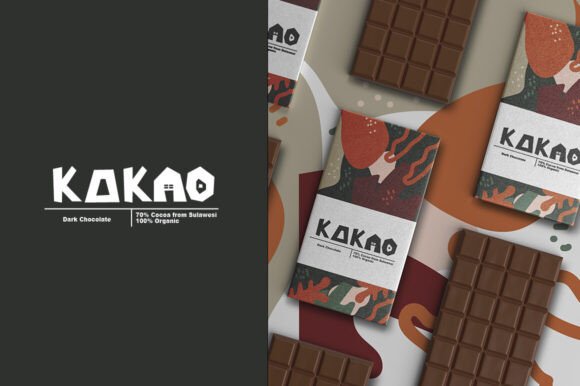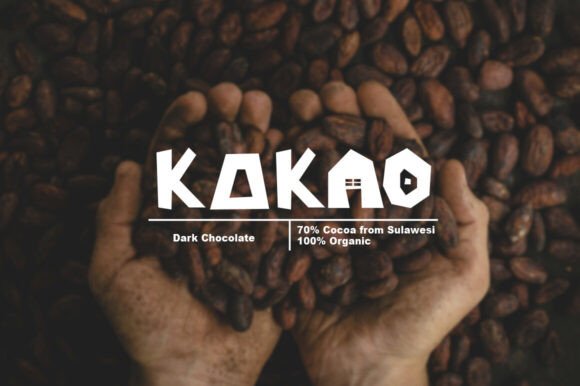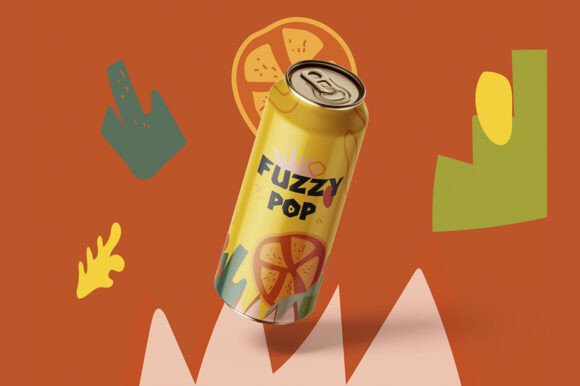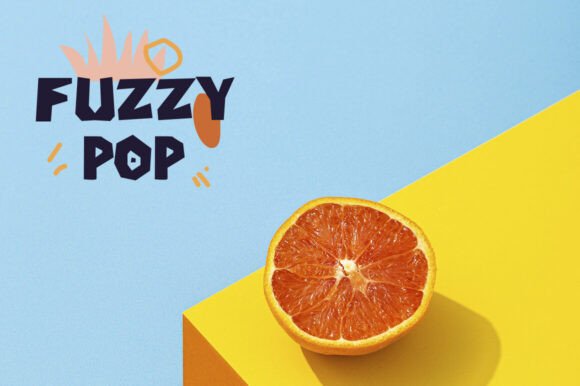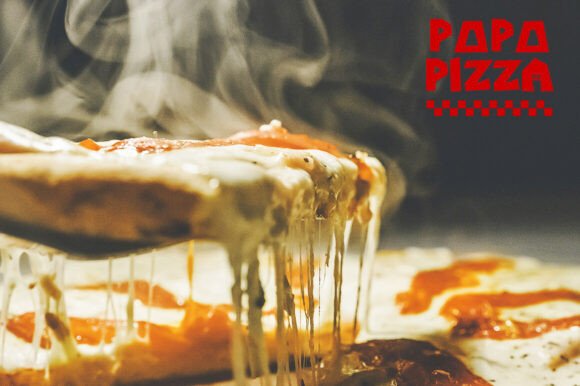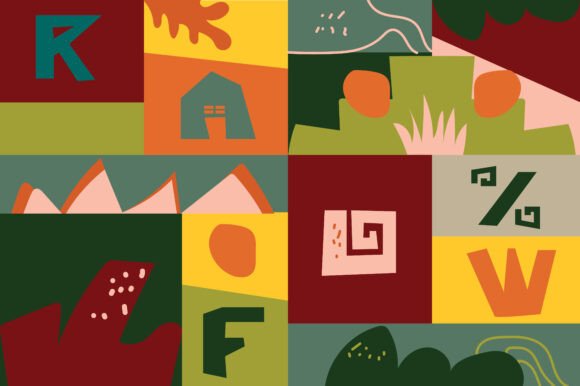
Introducing Frika: The Unique Papercut-Inspired Font
In the world of typography, few fonts manage to capture the essence of traditional art forms while offering modern versatility. Frika, a newly introduced font, does just that by blending the intricate beauty of papercut designs with the rich heritage of ethnic art. This unique fusion results in a delicate yet bold aesthetic that is sure to elevate any creative project.
The Inspiration Behind Frika
Frika draws its inspiration from the ancient art of papercutting, a craft that has been used for centuries to create intricate designs for various cultural and religious purposes. The precision and attention to detail required in papercutting are evident in Frika’s beautifully detailed characters. Each letter is crafted to reflect the careful cuts and patterns found in traditional papercut art, giving Frika a distinctive and handcrafted feel.
In addition to papercut designs, Frika also incorporates elements from ethnic art, adding a layer of cultural richness and diversity to the font. The motifs and patterns from various cultures around the world are seamlessly integrated into the characters, making Frika a true representation of global artistic heritage. This blend of traditional techniques and multicultural influences makes Frika a standout font for designers looking to add an international flair to their work.
Design Features of Frika
Frika’s design is characterized by its delicate yet bold aesthetic. The font features beautifully detailed characters with intricate cut-out patterns that give it a three-dimensional appearance. The level of detail in each letter is impressive, making Frika perfect for projects where a touch of elegance and sophistication is desired.
One of the key features that set Frika apart is its set of carefully designed alternates. These alternates provide multiple stylistic options, allowing designers to customize the look of their text. Whether you want to create a bold statement or a subtle impression, Frika’s alternates give you the flexibility to experiment with different combinations, ensuring your designs have a personalized and unique touch.
Versatility of Frika
Frika is an incredibly versatile font, suitable for a wide range of applications. Its unique design makes it ideal for:
- Invitations: Add a touch of handcrafted elegance to your invitations, making them truly special and memorable.
- Branding: Create bold and eye-catching brand identities that stand out from the crowd.
- Posters: Design stunning posters that capture attention with Frika’s intricate and detailed characters.
- Packaging: Elevate your product packaging with a font that exudes creativity and authenticity.
Why Choose Frika?
In a world where digital designs often lack a personal touch, Frika offers a refreshing alternative. Here are a few reasons why designers and crafters should consider Frika for their projects:
- Authenticity: Frika brings a sense of authenticity to your designs, thanks to its inspiration from traditional papercut and ethnic art.
- Creativity: With its detailed characters and alternates, Frika provides endless opportunities for creative expression.
- Elegance: The font’s delicate yet bold aesthetic adds a touch of elegance to any project.
- Versatility: Frika’s flexibility makes it suitable for a wide range of applications, from invitations to posters and branding.
Frika is more than just a font; it’s a statement of creativity and authenticity. By combining the intricate beauty of papercut designs with the rich heritage of ethnic art, Frika offers a unique aesthetic that is both delicate and bold. Whether you’re a designer looking to add a touch of elegance to your projects or a crafter seeking inspiration, Frika is the perfect choice. Elevate your creative projects with Frika and let the harmony of traditional art and modern typography shine through.